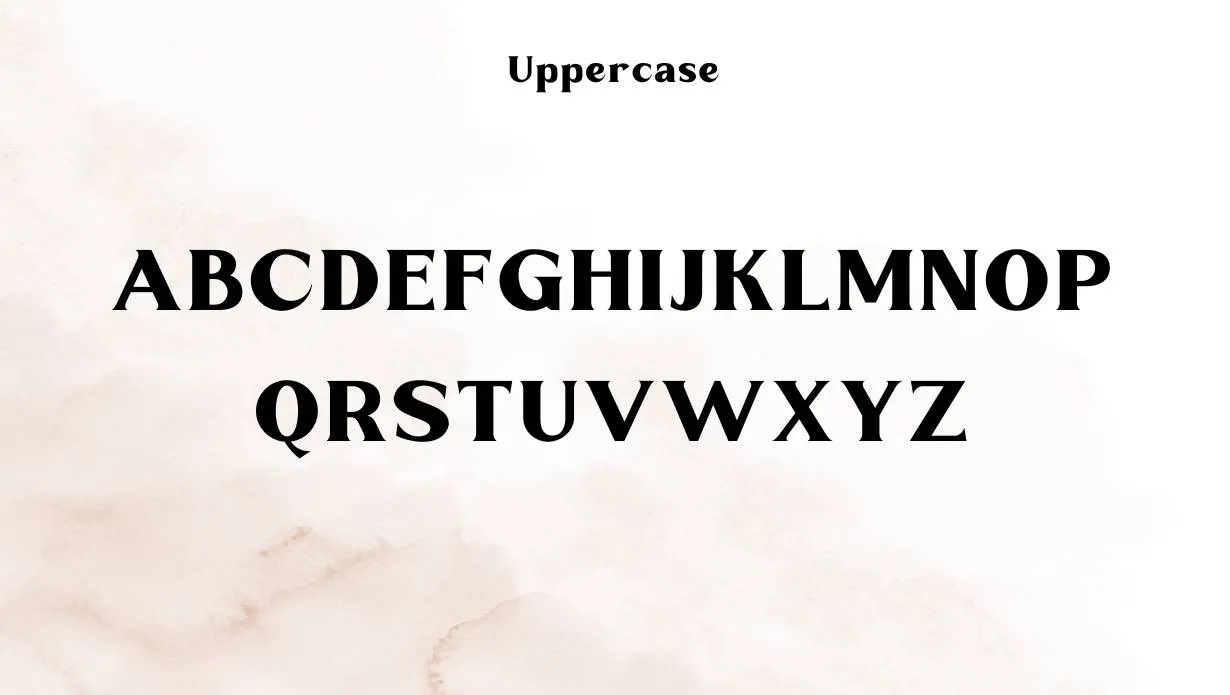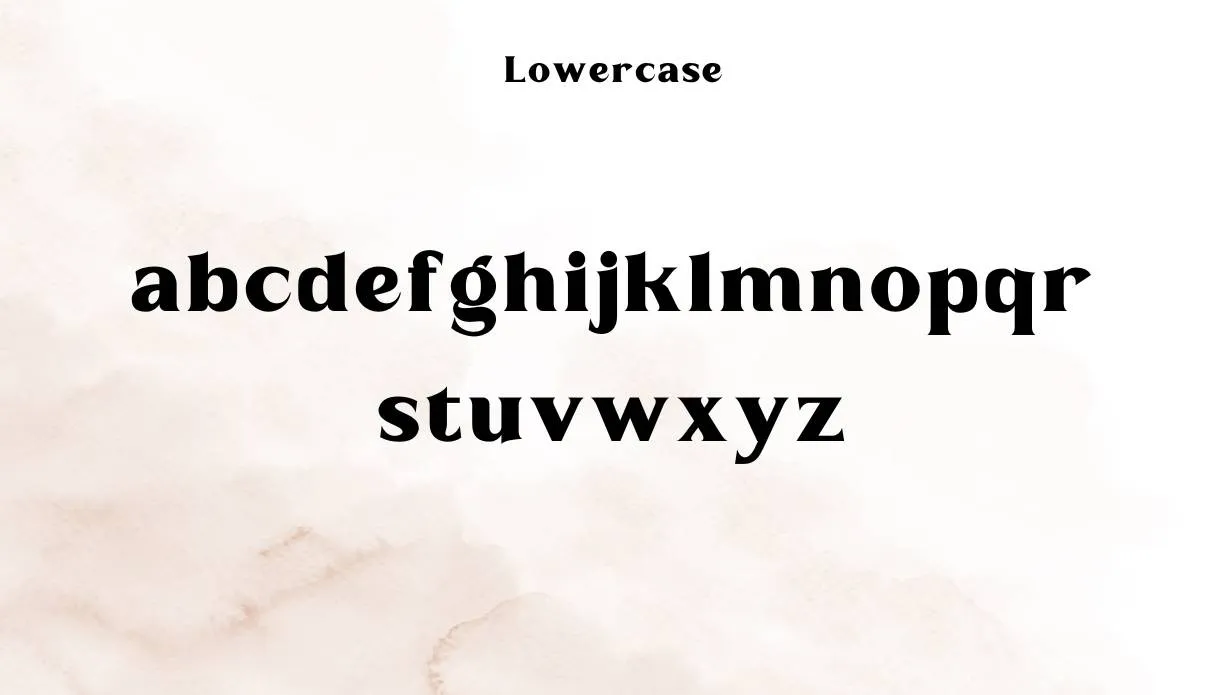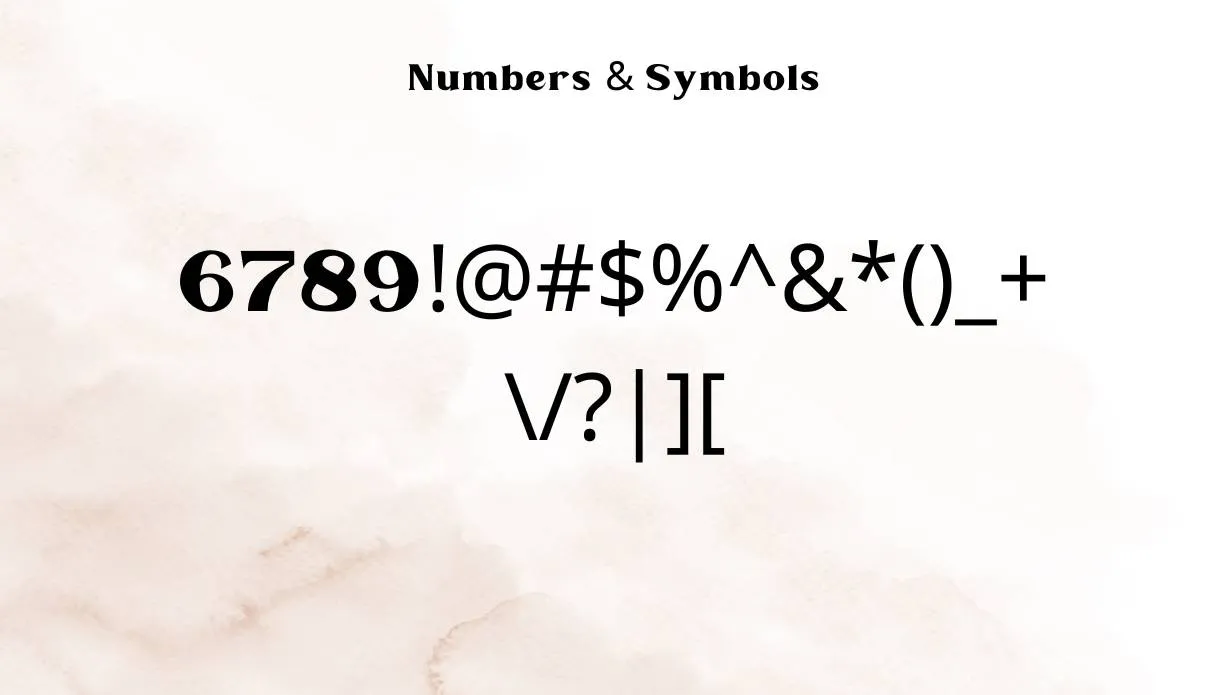
Offering Bongola Font, a modern Serif font that comes with a traditional charm, retro style, and trendy appearance, it was created by Raditya Putra Pratama along with TTF and OTF formats. It also includes stylish ligatures and a wide range of multiple language support.
This typeface can work perfectly in both large and small sizes, this elegant typeface has 71 characters which makes it versatile and flexible. It has the best pairing ability, you can pair it with serious font and create outstanding and appealing results.